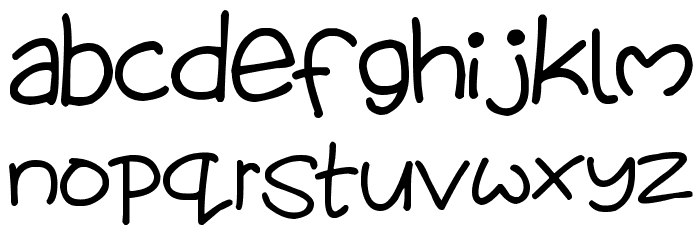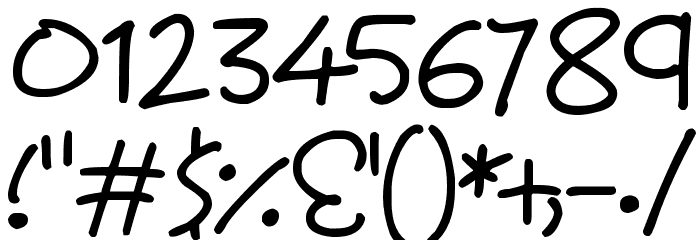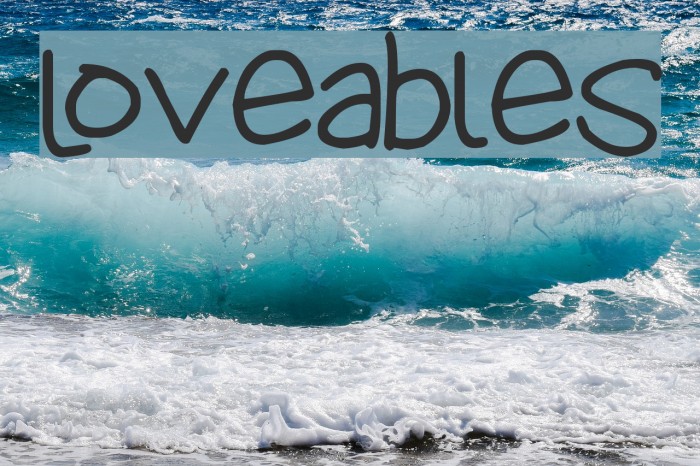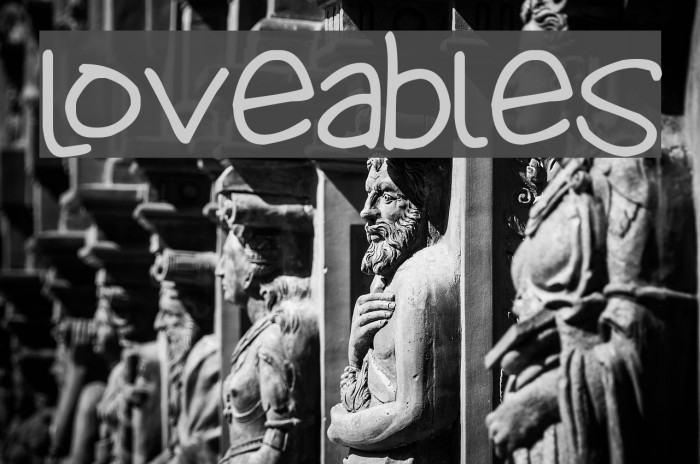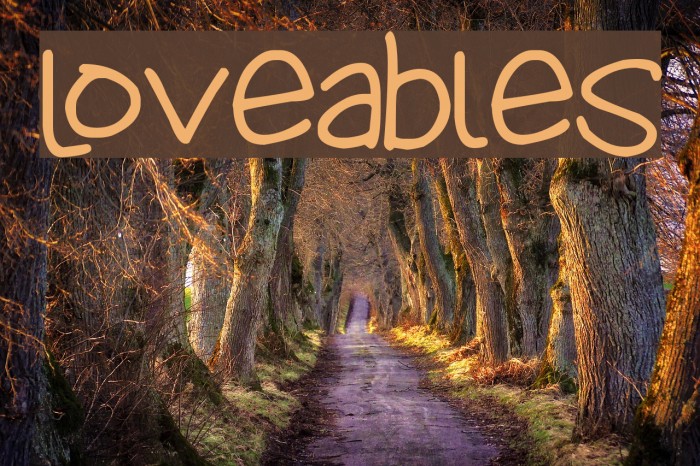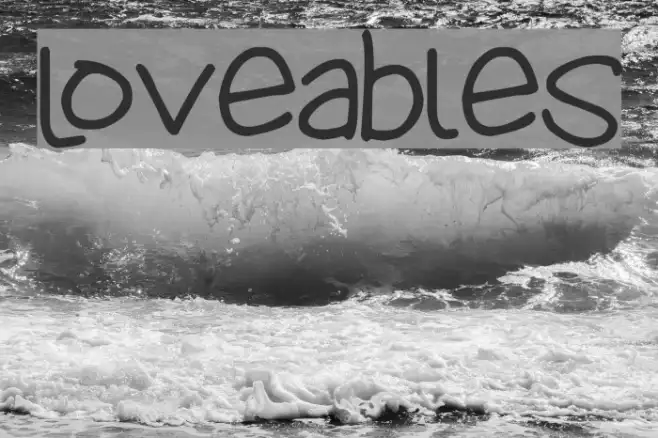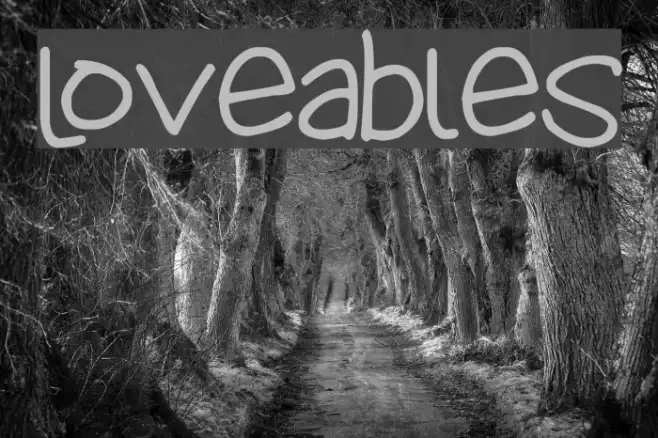
Loveables Font
This playful and whimsical font features a handwritten style with a casual and friendly appearance. The characters are rounded and slightly irregular, giving it a charming, informal look. The uppercase and lowercase letters maintain a consistent style, with smooth curves and a slight slant that adds to its approachable feel. The numbers and special characters are designed to match the overall aesthetic, ensuring a cohesive look across all text. This font is ideal for projects that require a personal touch, such as greeting cards, invitations, and playful branding.
- Proposed Projects: Ideal for greeting cards, invitations, playful branding, and children's books.
- Overall Style: Playful
- Use Case: Headlines, Logos, Informal Text